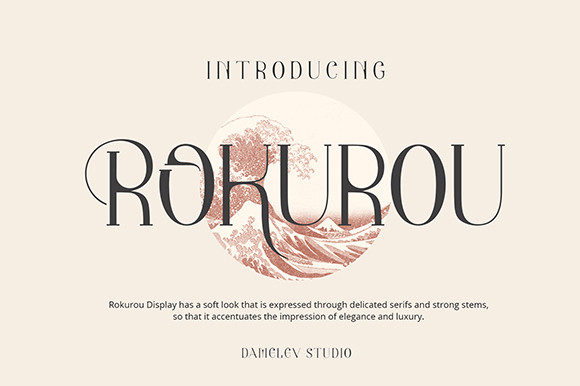
Introducing Rokurou, the Exquisite Serif Font for Dazzling Designs
In the realm of typography, Rokurou stands tall as a masterful creation, a serif font that exudes elegance and sophistication. Inspired by the desire to craft a font that transcends the ordinary, Rokurou was meticulously designed by the visionary minds at Damelev, renowned for their artistic flair in the world of font design.
Unleash Your Creativity with Rokurou
With its innate ability to elevate any design, Rokurou is the perfect companion for a myriad of creative endeavors. Whether you're a seasoned graphic designer, a budding artist, or simply someone with a passion for aesthetics, Rokurou will effortlessly transform your visions into stunning realities.
Discover the Allure of Rokurou's Timeless Beauty
Rokurou's captivating allure lies in its delicate strokes and graceful curves. Its thin, elongated serifs lend an air of refinement and elegance to every character, making it the ideal choice for designs seeking a touch of timeless beauty. From invitations and posters to brochures and logos, Rokurou effortlessly adds a touch of sophistication that commands attention.
Experience the Versatility of Rokurou
Rokurou's versatility extends far beyond its aesthetic appeal. Its inherent flexibility allows it to seamlessly adapt to a wide spectrum of design styles, from classic and traditional to modern and contemporary. Whether you're creating a vintage-inspired poster or a cutting-edge website, Rokurou effortlessly complements the overall design, adding a touch of elegance and charm.
Rokurou: The Key to Unforgettable Designs
Rokurou possesses an uncanny ability to transform ordinary designs into captivating masterpieces. Its inherent beauty and versatility make it the perfect choice for designers seeking to create a lasting impression. From eye-catching headlines that demand attention to captivating body text that captivates readers, Rokurou elevates every element of your design, leaving an indelible mark on the minds of your audience.